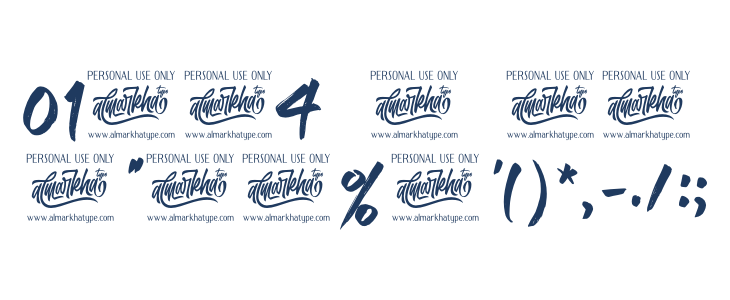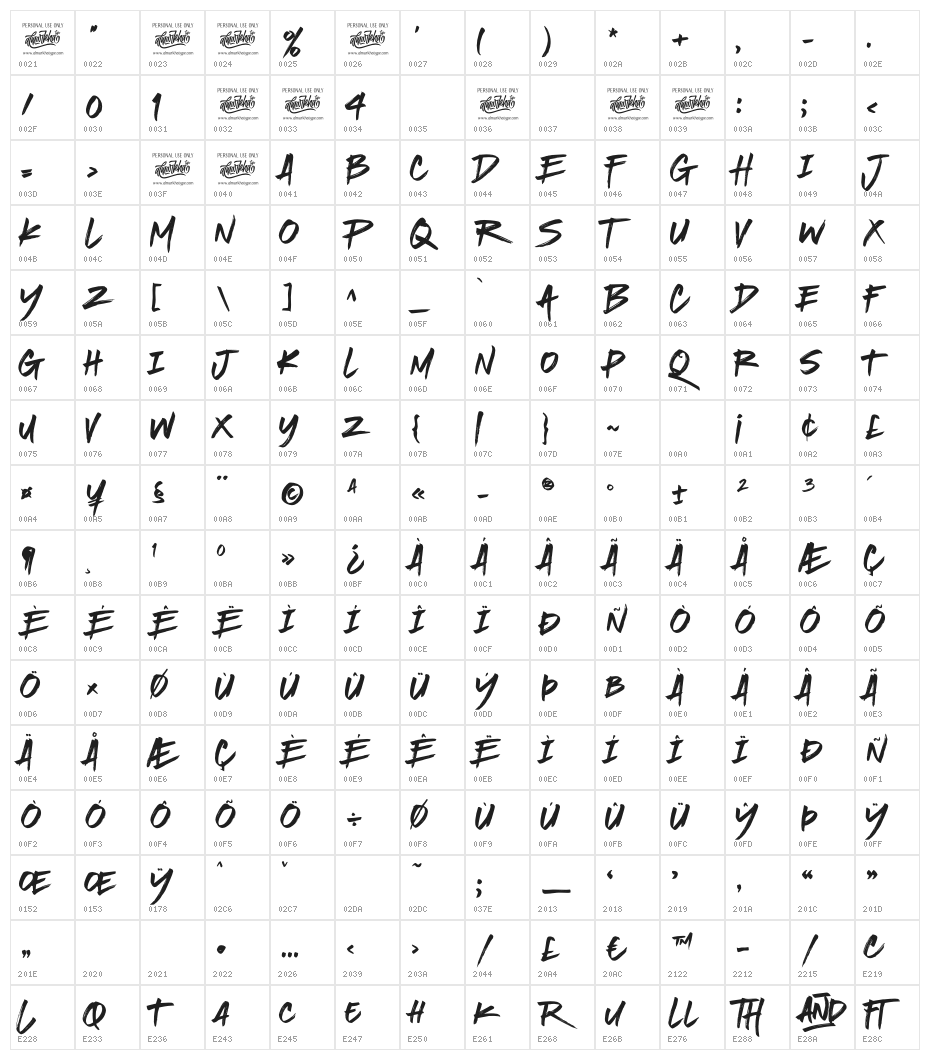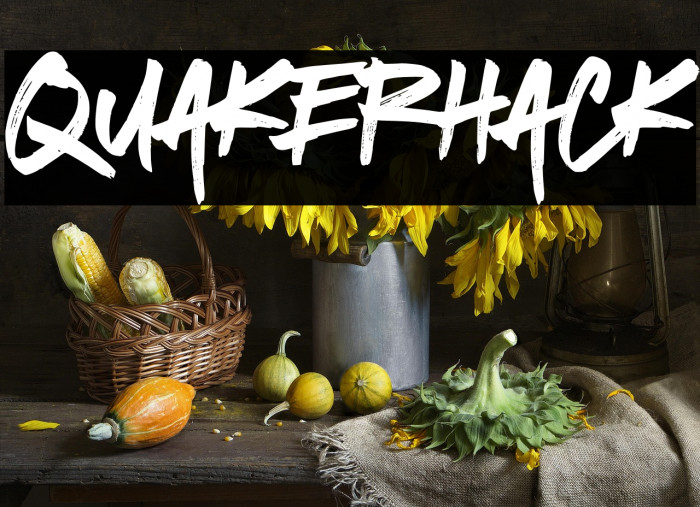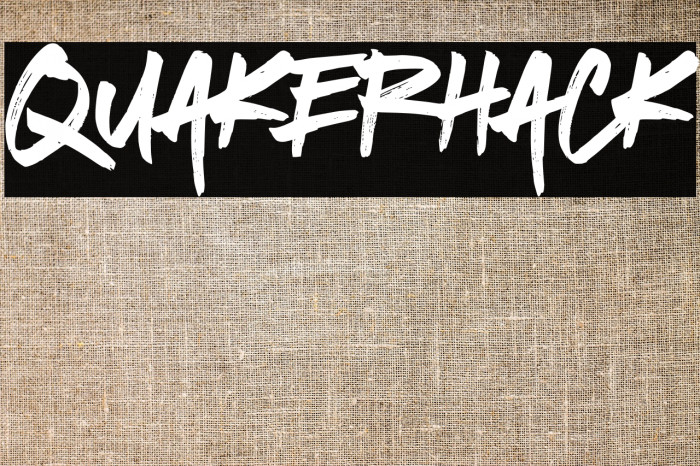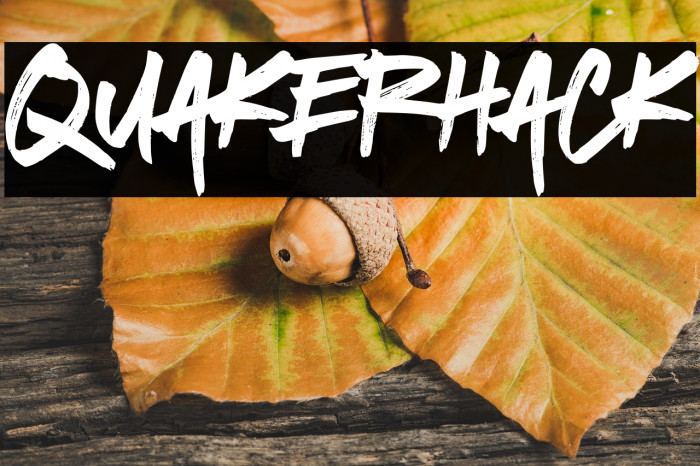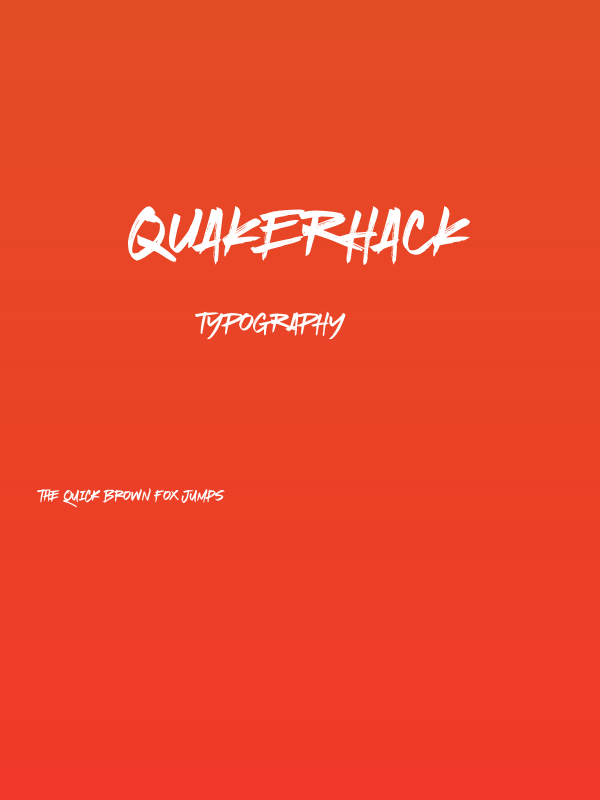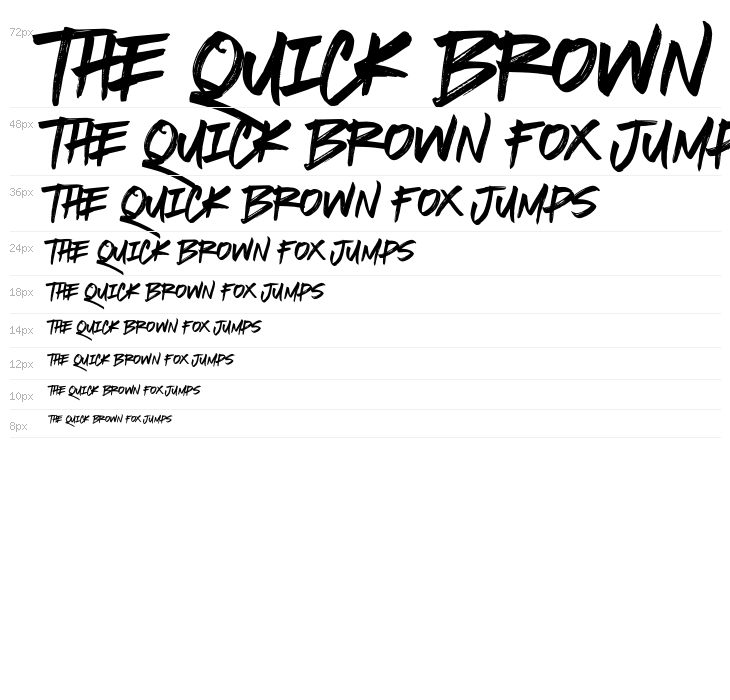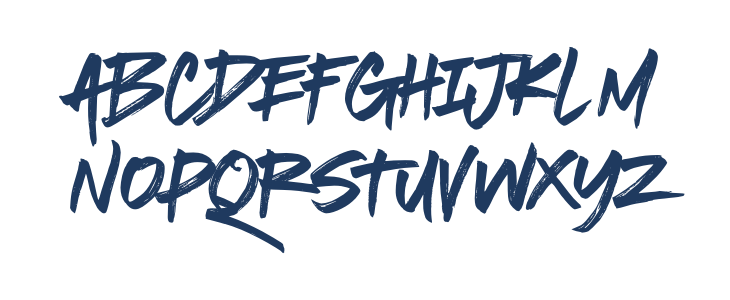
Quakerhack Font
Quakerhack Description
This font exudes a bold, energetic style with its brush-like strokes and dynamic movement. The uppercase and lowercase letters maintain a consistent, flowing rhythm, giving a sense of spontaneity and creativity. The characters are slightly slanted, adding to the sense of motion and urgency. The numbers and special characters are crafted with the same brush-like quality, ensuring a cohesive look across all elements. This font is perfect for projects that require a touch of artistic flair and expressiveness.
| Overall Style | Modern, Artistic |
| Use Case | Logos, Headlines, Posters |
| Proposed Projects | Ideal for branding, posters, album covers, and any design needing an artistic, expressive touch. |